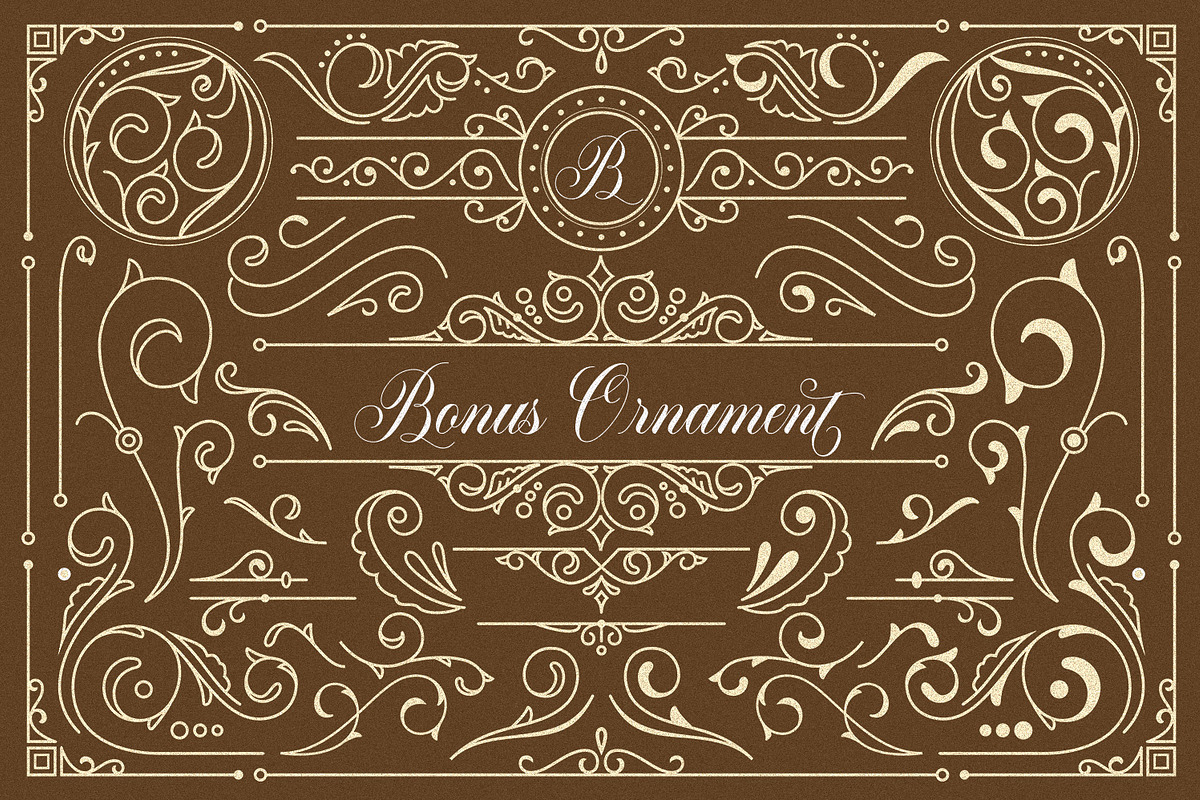
Bellanaisa Script
Bellanaisa Script - a new fresh & modern calligraphy style, decorative characters and a dancing baseline! a mixture of from copperplate calligraphy with hand lettering style. So beautiful on invitation like greeting perfect to be applied in any type of formal pieces such invitations, labels, menus, Logos, fashion, make up, stationery, letterpress, romantic novels, magazines, books, greeting / wedding cards, packaging, labels, cards, branding materials, business cards, quotes, posters, and more design concept!
Including multiple language support. With OpenType features with stylistic alternates, ligatures and swash characters, that allows you to mix and match pairs of letters to fit your design, and also a touch of ornament makes this font look elegant and classy.
- Unique ligatures
- Stylistic Swash Alternates
- Stylistic sets
- International Symbols include